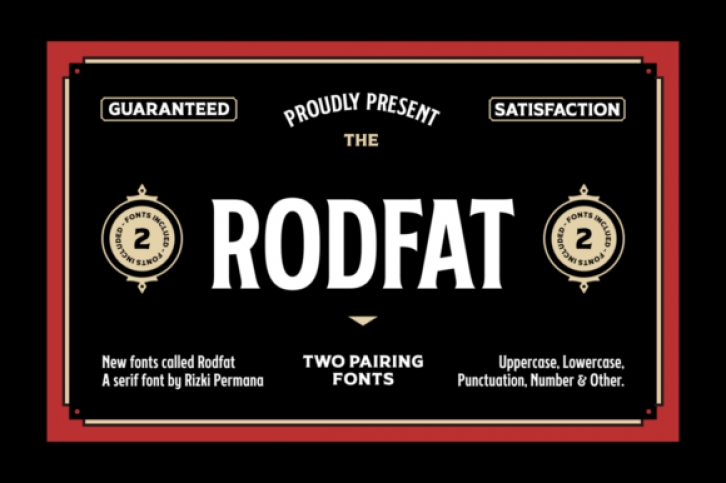
Rodfat is a gorgeous old-timey display font with a modern feel! Inspired by the industrial revolution, it will bring back the early days of the 20th century.